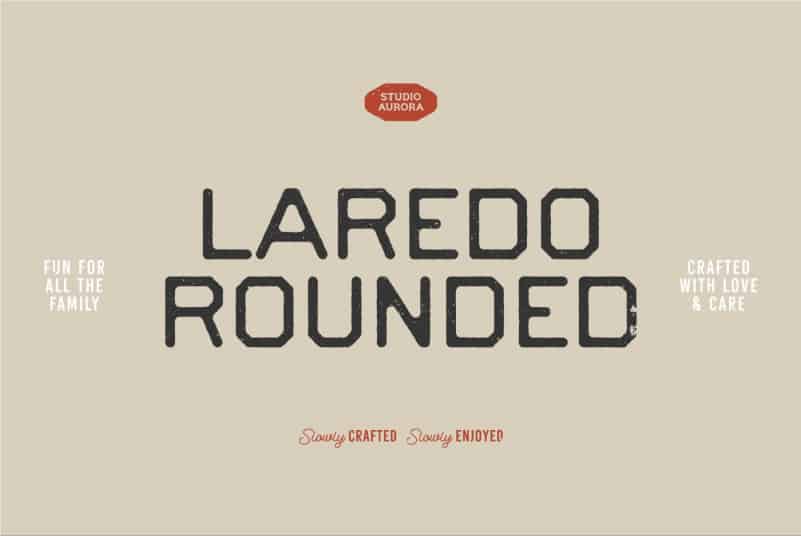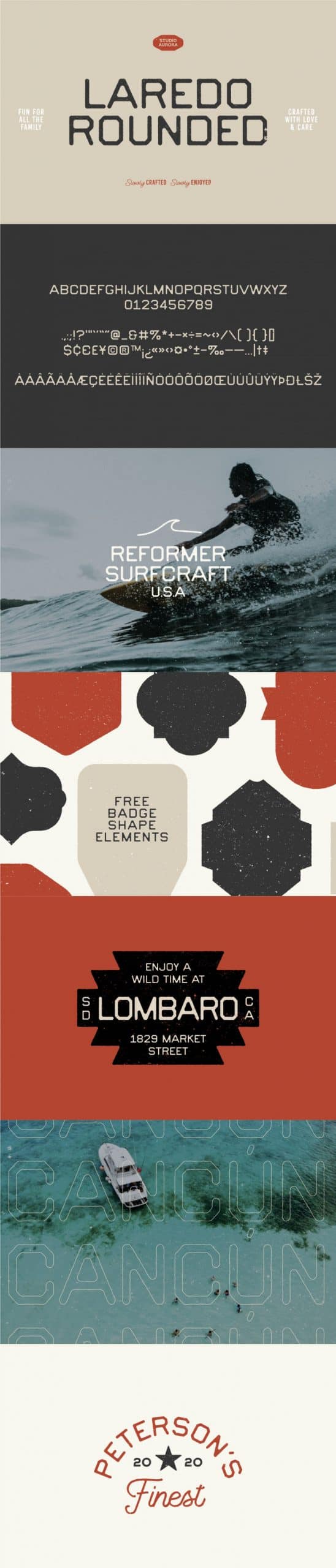
Laredo Font is a free rounded vintage style font created by Studio Aurora. Inspired by classic western culture, custom culture motorcycle and combining with vintage touch. With bonus illustration in this package, this fonts are great for logotype, badges, clothing, poster, and much more.